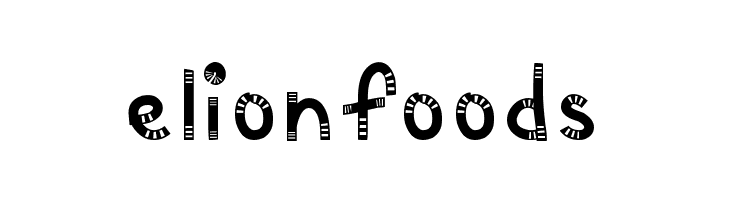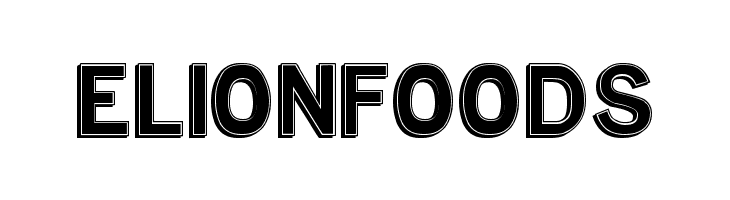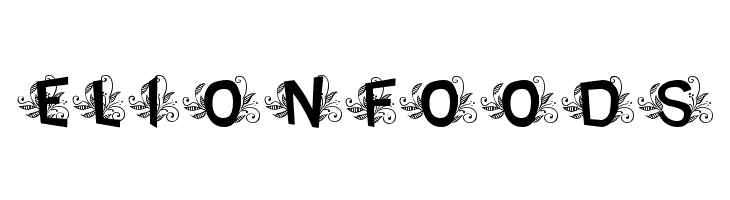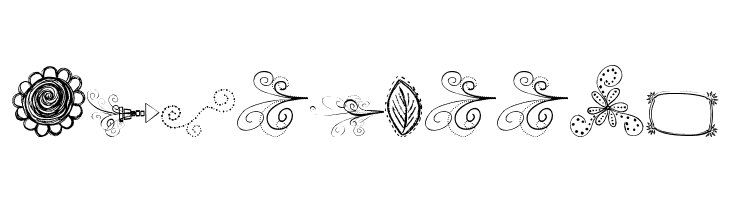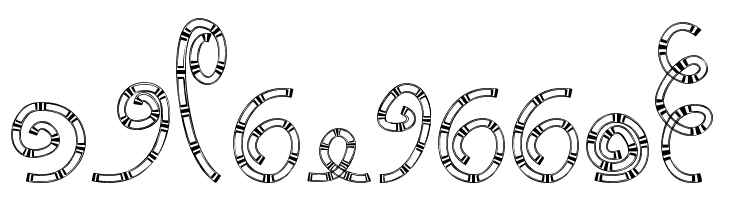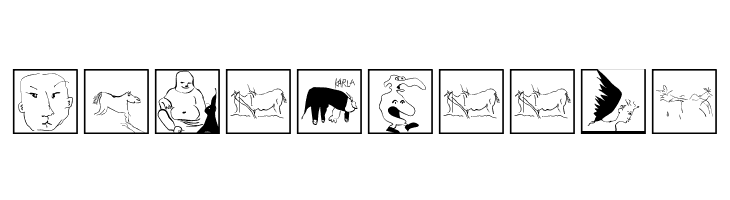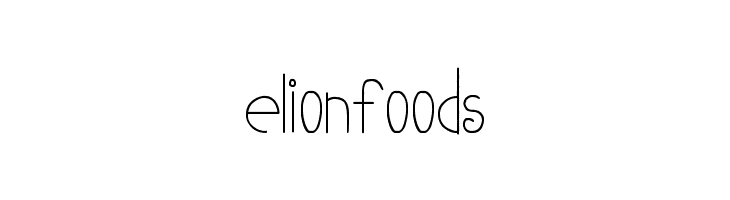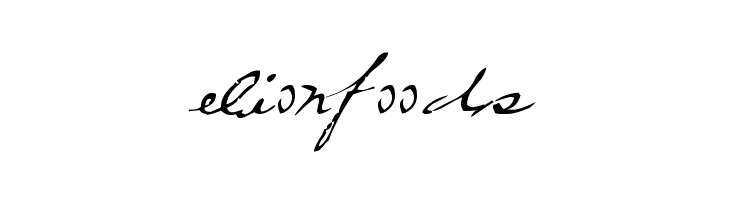
Hand-drawn sketch illustrations replace standard characters in a playful, artistic style.
An ornate, decorative font with intricate leaf embellishments.
A bold, outlined font with a modern and structured appearance.
A playful, heart-themed decorative font with a hand-drawn feel.
A playful, decorative font with striped and dotted characters, perfect for creative projects.
A whimsical, doodle-inspired font with playful swirls and decorative details.
A playful, hand-drawn font with thin, elongated characters and a whimsical style.
A dynamic, expressive script font with bold, sweeping strokes.
Whimsical hand-drawn decorative dingbats with floral and ornate motifs.